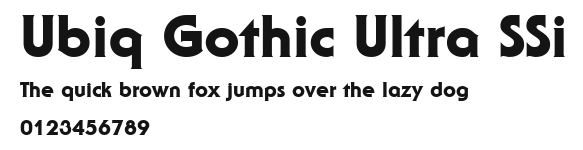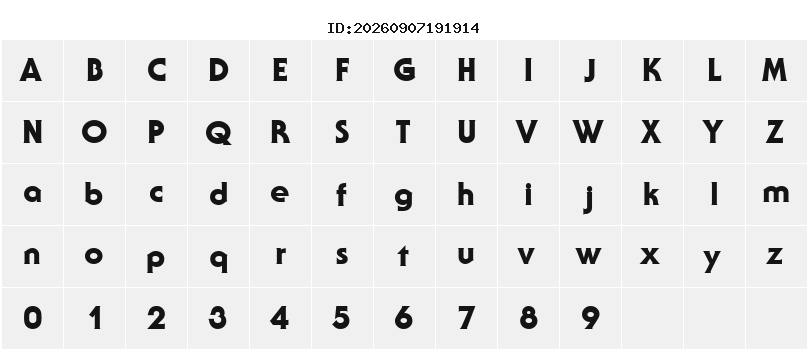
Ubiq Gothic Ultra SSi Preview
• Font Name: Ubiq Gothic Ultra SSi
• Font Style: Ultra Black
• Full Font Name: Ubiq Gothic Ultra SSi Ultra Black
About Ubiq Gothic Ultra SSi.ttf
Ubiq Gothic Ultra SSi.ttf is a modern, elegant sans-serif font designed for ultimate readability and visual harmony. Perfect for branding, headlines, web design, and print materials.